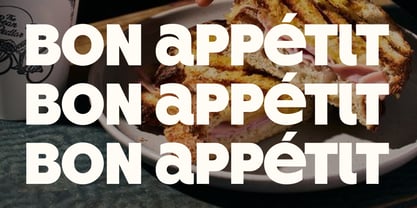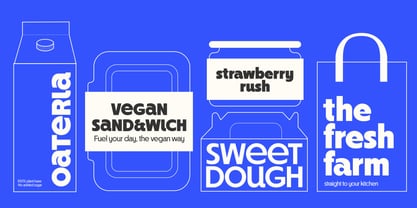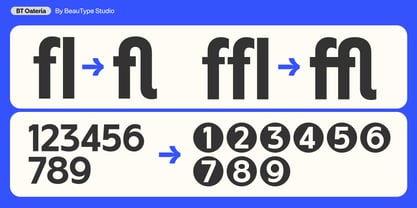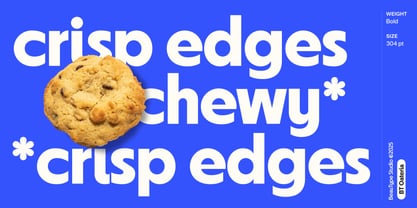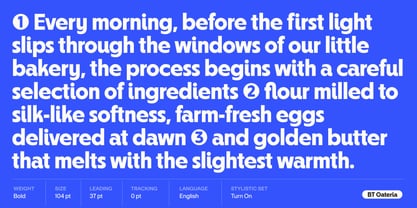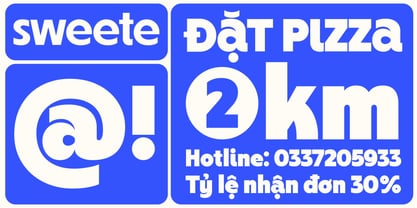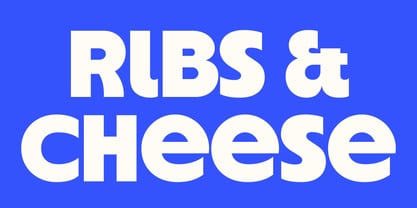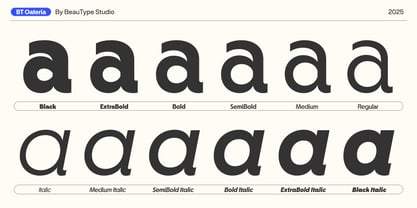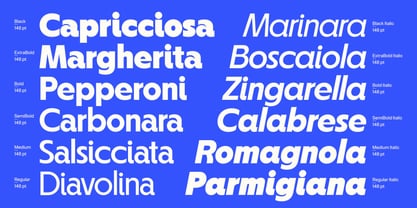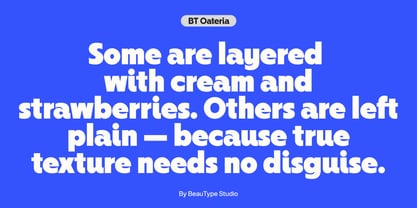
BT Oateria
by BeauType
The BT Oateria Font Family was designed by Nam Bui and published by BeauType. BT Oateria contains 12 styles and family package options. More about this family
Meet BT Oateria – a sans serif display font built for flavor. BT Oateria combines bold geometry with expressive proportions to create a typeface that’s both striking and approachable. The font is perfect for food & beverage brands that want to stand out with a fun, modern edge. Think craft cafés, street food joints, or bold packaging that pops off the shelf. BT Oateria supports Latin-based languages, and is available in both up-right and italics to cover all your needs.
Designers: Nam Bui
Foundry: BeauType